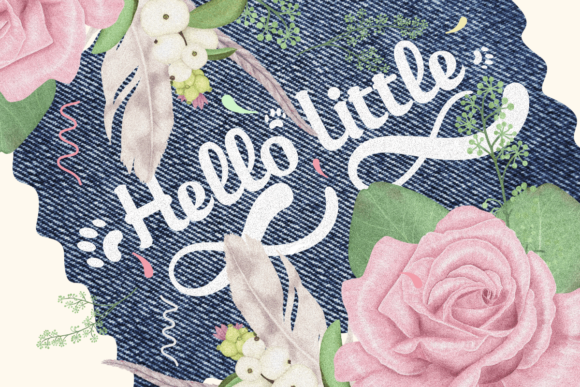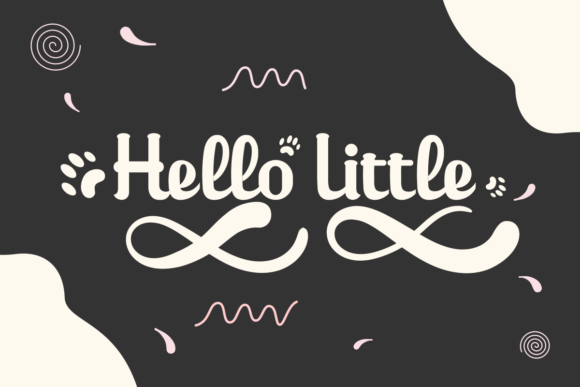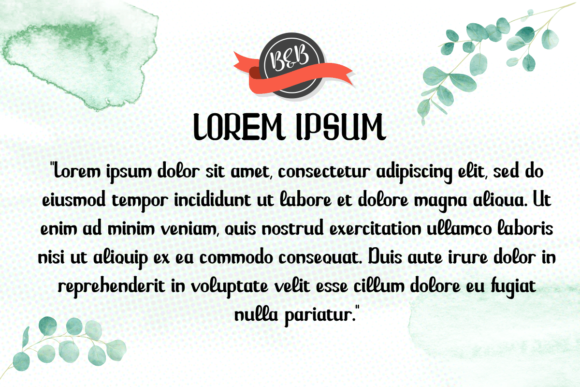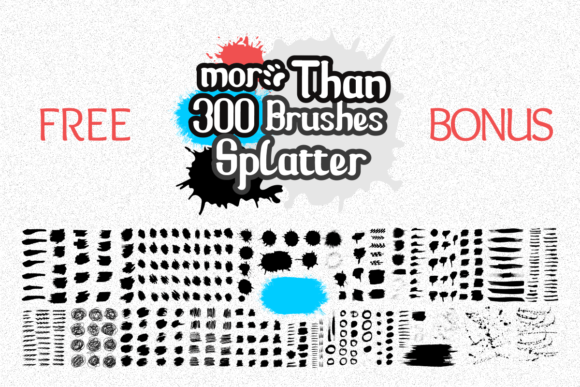
Hello Little Tiger Font
About Hello Little Tiger Font
Introducing “Hello Little Tiger,” an incredibly distinct and timeless handwritten font that exudes charm and allure. With its captivating appeal, “Hello Little Tiger” is the perfect choice for a wide range of design projects, from enchanting wedding invitations to heartfelt thank you cards, captivating quotes, charming greeting cards, sophisticated logos, and stylish business cards.
“Hello Little Tiger” boasts a unique and timeless style that sets it apart from the crowd. Its handwritten charm adds a touch of authenticity and personality to every design, making it a standout choice for various occasions and projects.
Imagine using “Hello Little Tiger” to create enchanting wedding invitations that set the tone for a celebration filled with love and warmth.
In branding and logo design, “Hello Little Tiger” becomes a symbol of refined sophistication and charm. Its distinctive style allows you to create a brand identity that stands out and leaves a lasting impression.
Social media posts and quotes come to life with “Hello Little Tiger.” Its charming script adds an artistic flair, drawing attention and engagement from your audience.
Greeting cards and thank you notes become heartfelt expressions of emotion with “Hello Little Tiger.” The font’s timeless flow conveys sentiments with finesse, making your messages truly captivating.
With its versatility and distinctiveness, “Hello Little Tiger” becomes a reliable companion for all your creative endeavors, adding a touch of charm and beauty to every project it graces.
In conclusion, “Hello Little Tiger” is more than just a font; it’s an invitation to explore creativity and beauty. With its distinct and timeless style, “Hello Little Tiger” becomes an invaluable asset for all your design projects. Embrace the captivating allure of “Hello Little Tiger” and watch as your creations come alive with sophistication and grace. Let your imagination flourish in the distinct and timeless embrace of “Hello Little Tiger,” the handwritten font that defines creative brilliance and elevates your designs to new heights of beauty and artistry.